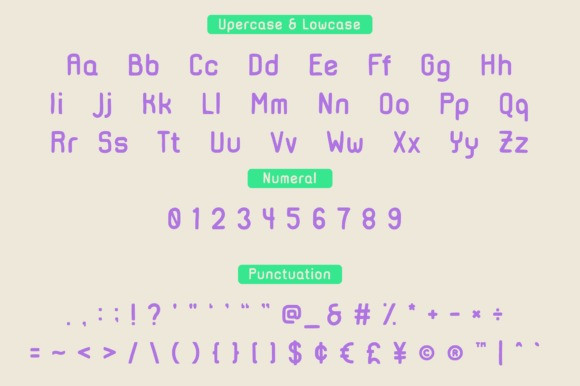
Cakadidi Font
Cakadidi Font is a simple and fun sans serif font. This creative and hand-crafted font can easily become your favorite. It can be used for books, magazines, social media posts, invitations, and so much more!